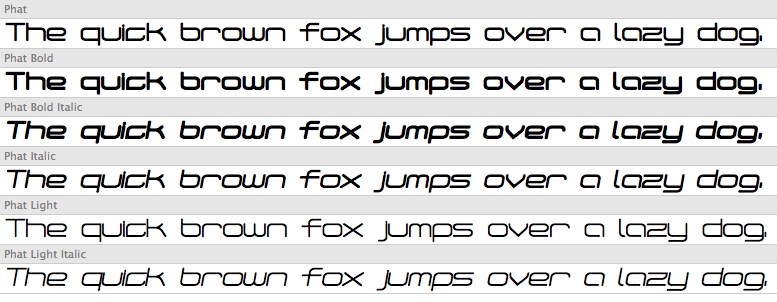
Phat Font
Phat Font is perfect for hip-hop music venues, urban streetwear brands, bold graphic design projects, energetic sports marketing, dynamic youth culture campaigns, vibrant nightclub branding, street art gallery displays, urban lifestyle magazines, powerful music production companies, and authentic street culture organizations.
Phat Font creates excitement because it embodies the bold confidence and urban swagger of street culture with its thick letterforms and street-inspired character design. The font's powerful presence and urban aesthetic instantly convey street credibility and cultural authenticity, making any brand appear genuinely connected to urban culture and authentically street-smart. Its carefully crafted bold details and street character create an immediate sense of urban confidence that captivates audiences seeking street experiences, urban quality, and products that celebrate the transformative power of street culture and hip-hop excellence.
The Phat Font family includes multiple weights and styles: Regular, Bold, Black, Ultra Black, Light, Medium, Italic, Condensed, Extended, and Street versions. Each variant maintains the font's signature urban character while offering different levels of street styling and hip-hop authenticity suitable for various urban culture and street applications.
This powerful typeface brings the authentic spirit of street culture into contemporary urban design with remarkable boldness and street appeal. Phat Font Free Download provides urban brands and street culture organizations with access to premium street-inspired typography that embodies the essence of hip-hop culture and urban excellence. The font's bold design and street authenticity make it ideal for businesses seeking to establish meaningful connections with urban audiences who appreciate street culture, hip-hop values, and the transformative power of urban expression that creates authentic street credibility. Whether you're creating branding for music venues, designing materials for streetwear companies, developing communications for urban lifestyle brands, or producing content for street culture platforms, this font delivers the authentic urban atmosphere that resonates with audiences seeking genuine street experiences, urban quality, and the bold confidence that comes from embracing authentic street culture. Its versatile design ensures outstanding performance across both bold printed materials and dynamic digital urban platforms while maintaining the character of authentic street typography. The font excels in applications requiring urban credibility and street appeal. Street culture professionals appreciate its ability to convey urban authenticity while remaining highly functional for various street communications and hip-hop promotional materials. The comprehensive character set includes urban symbols and extensive international language support, making it perfect for global street culture brands and international urban organizations seeking to communicate authentic street values, hip-hop excellence, and urban culture to diverse worldwide audiences who embrace street lifestyle, appreciate urban authenticity, and value the transformative power of genuine street culture that creates community through bold expression, urban creativity, and the unstoppable spirit of street culture that defines authentic urban living and hip-hop excellence.